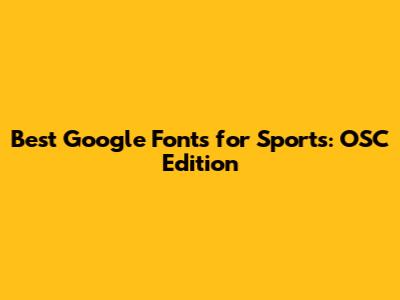
- Contrast is Key: Pair bold fonts like Anton or Bebas Neue with lighter, more neutral fonts like Roboto or Montserrat for body text. This creates visual contrast and makes your designs more engaging.
- Consider the Sport: Choose fonts that align with the spirit of the sport you're representing. A sleek, modern font might be perfect for a high-tech sport like Formula 1 racing, while a more traditional font might be better suited for a classic sport like baseball.
- Use Font Weights Strategically: Experiment with different font weights to add emphasis and hierarchy to your designs. Bold weights can be used for headlines and titles, while lighter weights can be used for body text and captions.
- Test Readability: Always test your font choices in different sizes and on different devices to ensure that they are legible and easy to read. This is especially important for mobile devices, where screen sizes are smaller.
- Limit Font Choices: Avoid using too many different fonts in a single design. Stick to a maximum of two or three fonts to maintain a consistent and cohesive look.
Choosing the right font can be a game-changer, especially when it comes to sports-related designs. Think about it: fonts are the unsung heroes that convey power, speed, and excitement in everything from team logos to website headers. When you’re looking for OSC best Google Fonts for sports, you’re essentially seeking that perfect visual representation of athleticism and energy. But with countless options available in the Google Fonts library, finding the ideal one can feel like navigating a never-ending maze. Fear not, sports enthusiasts and designers! This article dives into a curated selection of top-notch Google Fonts that perfectly capture the spirit of sports, helping you create designs that truly resonate.
When considering fonts for sports-related designs, it's crucial to prioritize readability and impact. A font that looks stylish but is difficult to read at a glance won't serve its purpose, especially in fast-paced environments like sports broadcasts or event posters. Therefore, OSC best Google Fonts for sports need to strike a balance between aesthetic appeal and functional clarity. Think about the specific sport you're representing. A font that works well for a high-energy sport like basketball might not be the best choice for a more refined sport like golf. Consider the overall tone and message you want to convey. Are you aiming for a sense of tradition and history, or a more modern and edgy feel? These considerations will guide you in selecting the most appropriate font.
Moreover, the versatility of the font is an important factor. The OSC best Google Fonts for sports should work well across various mediums, from print to digital. This means it should be legible at different sizes and resolutions, and it should pair well with other fonts. Experiment with different font combinations to find a harmonious balance that reflects the overall design aesthetic. Don't be afraid to test the fonts in different contexts, such as on mockups of jerseys, banners, or social media graphics, to see how they perform in real-world scenarios. By carefully considering these factors, you can narrow down your options and choose a font that truly elevates your sports-related designs. The right font will not only enhance the visual appeal but also contribute to the overall branding and messaging of your team, event, or organization.
Top Google Fonts for Sports Designs
Selecting OSC best Google Fonts for sports requires an understanding of what fonts evoke specific feelings. For instance, a strong, bold sans-serif font often communicates power and athleticism, while a sleek, modern font might suggest speed and agility. Ultimately, the choice depends on the specific sport, the target audience, and the overall design aesthetic. Let's explore some standout options from Google Fonts that are perfect for a wide range of sports-related projects.
Montserrat
Montserrat is a versatile sans-serif font that exudes a clean, modern, and energetic feel. Its geometric design and balanced letterforms make it highly readable in various sizes and contexts. This makes it an excellent choice for sports logos, website headers, and even body text. The font’s neutral yet contemporary aesthetic allows it to pair well with other fonts, giving designers a wide range of creative options. For OSC best Google Fonts for sports, Montserrat is an excellent option. Its clean lines and strong presence make it ideal for conveying professionalism and athleticism. Whether you're designing a team website, creating promotional materials, or developing a sports app, Montserrat can help you achieve a polished and impactful look. It’s particularly well-suited for sports that require precision and focus, such as basketball, tennis, and swimming. The font’s legibility ensures that your message is clear and easy to understand, even in fast-paced environments. Its versatility extends to both print and digital mediums, making it a reliable choice for all your design needs. With its balanced letterforms and modern appeal, Montserrat is a timeless font that will continue to be a favorite among designers for years to come.
Bebas Neue
Bebas Neue is a condensed sans-serif font that is known for its tall, narrow letters and strong vertical presence. This font screams speed and dynamism, making it a fantastic option for sports brands that want to convey a sense of urgency and excitement. The condensed design allows you to fit more text into a limited space, which can be particularly useful for jersey designs, banners, and other promotional materials where space is at a premium. When considering OSC best Google Fonts for sports, Bebas Neue stands out for its bold and attention-grabbing aesthetic. It's particularly effective for sports that emphasize speed and power, such as racing, football, and extreme sports. The font’s narrow letterforms create a sense of forward momentum, while its strong vertical lines convey stability and strength. Bebas Neue is also highly versatile and can be used in a variety of design contexts. It works well for headlines, subheadings, and even short paragraphs of text. Its legibility is excellent, especially in larger sizes, making it a reliable choice for both print and digital applications. By using Bebas Neue, you can create designs that are both visually striking and highly functional, capturing the essence of speed and athleticism.
Roboto
Roboto is a classic sans-serif font that offers a perfect blend of modernity and readability. Its clean lines and open letterforms make it highly legible in various sizes, making it a versatile choice for a wide range of sports-related applications. Roboto also pairs well with other fonts, giving designers the flexibility to create unique and dynamic designs. For those seeking OSC best Google Fonts for sports, Roboto is an excellent choice. Its versatility and legibility make it suitable for websites, apps, and print materials. Whether you're designing a sports blog, creating social media graphics, or developing a mobile app for athletes, Roboto can help you achieve a clean and professional look. Its neutral yet contemporary aesthetic allows it to adapt to different styles and themes. It's particularly well-suited for sports that require a balance of precision and agility, such as basketball, soccer, and volleyball. The font’s legibility ensures that your message is clear and easy to understand, even on small screens. With its modern appeal and versatility, Roboto is a timeless font that will continue to be a favorite among designers for years to come. Its ability to seamlessly integrate into various design contexts makes it an indispensable tool for creating impactful and engaging sports-related visuals.
Oswald
Oswald is a reworked version of the classic sans-serif style historically used by print and alternative digital media screens. The characters have been re-drawn and reformed to better fit the needs of today's digital device screens. Oswald is designed to be used freely across the internet by web browsers on desktop computers, laptops, tablets and mobile devices. When considering OSC best Google Fonts for sports, Oswald is a solid choice for headlines and titles where you want to make a strong impression. The font's slightly condensed letterforms give it a sense of verticality and energy, making it suitable for conveying speed and dynamism. It's particularly effective for sports-related designs where you want to capture attention and create a sense of excitement. Oswald is also highly versatile and can be used in a variety of design contexts. It pairs well with other fonts, allowing designers to create unique and dynamic layouts. Its legibility is excellent, especially in larger sizes, making it a reliable choice for both print and digital applications. By using Oswald, you can create designs that are both visually striking and highly functional, capturing the essence of speed and athleticism. This font's modern and energetic aesthetic makes it a popular choice among designers for sports-related projects, ensuring that your message is delivered with impact and clarity. Whether you're designing a sports magazine, creating event posters, or developing a promotional campaign, Oswald can help you achieve a bold and attention-grabbing look.